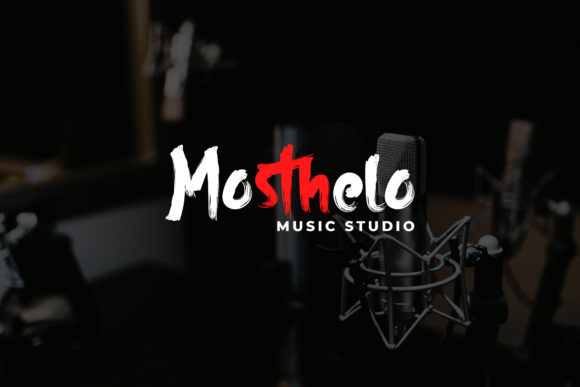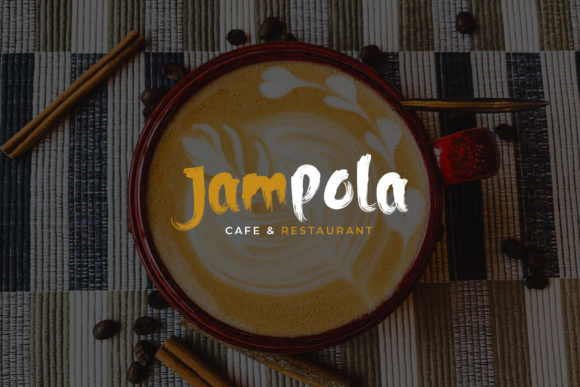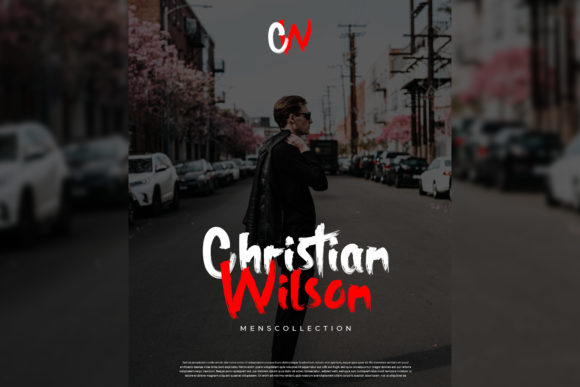
Introduction to Qallego Font
Qallego is an unique display font.
It will add an incredibly joyful touch to your designs Fall in love with its playful style and use it to create beautiful stationary art, eye-catching social media posts, and much more.
Qallego Font offers exceptional quality and versatility, making it a valuable addition to your design toolkit. Whether you’re creating for personal projects or commercial use, Qallego Font delivers professional results.